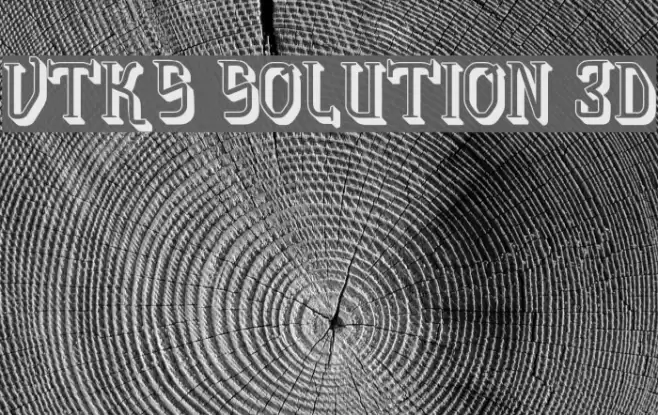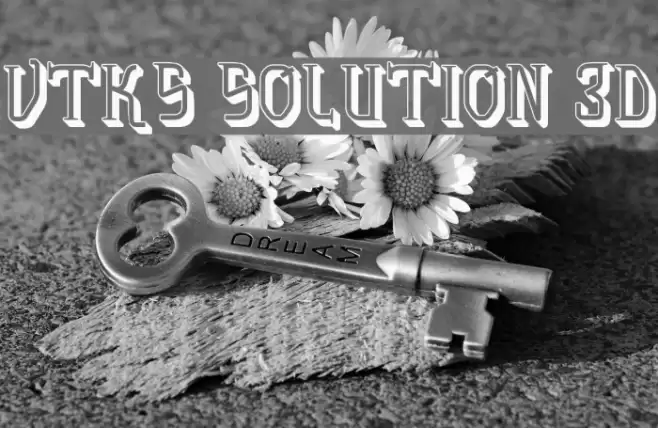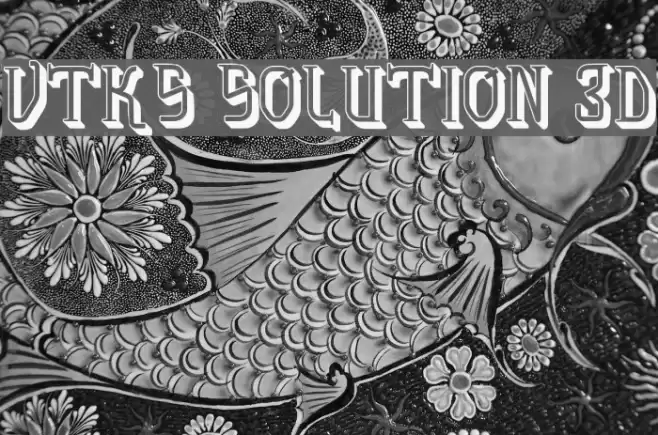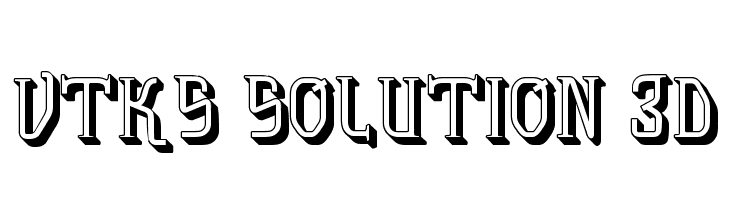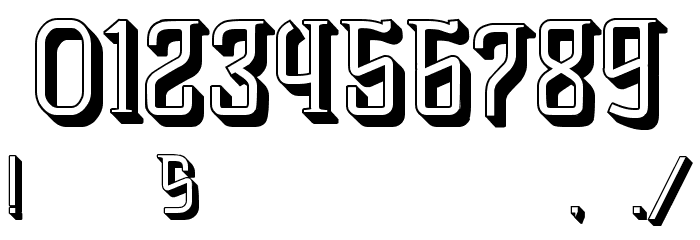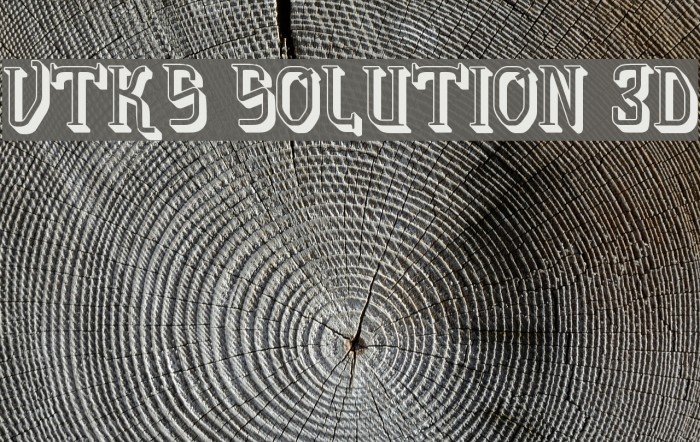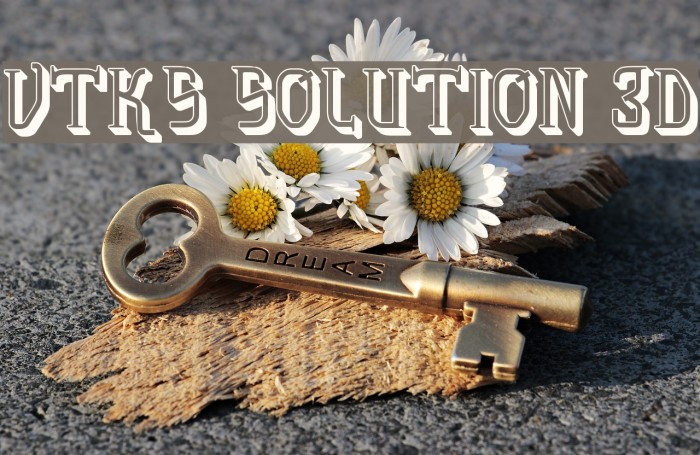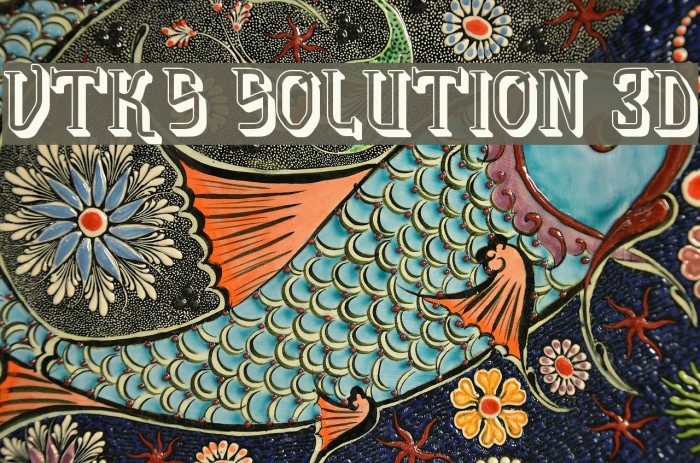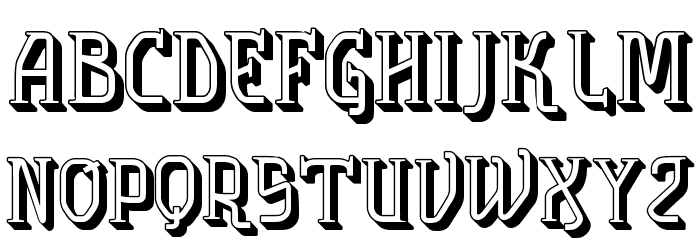
vtks solution 3d Font
vtks solution 3d Description
This font features a bold, three-dimensional design with a strong, shadowed effect that gives each character a sense of depth and solidity. The uppercase letters are angular and sharp, with distinct serifs that enhance the boldness of the design. The numbers and special characters follow the same style, maintaining consistency throughout. The font's overall appearance is striking and impactful, making it suitable for attention-grabbing headlines or titles. Its decorative nature and high contrast between the thick strokes and the shadowed areas contribute to its dramatic effect.
A bold, 3D decorative font with sharp serifs and high contrast from Uncategorized fonts.
- Proposed Projects: Ideal for posters, logos, video game titles, and any project requiring a bold, eye-catching typeface.